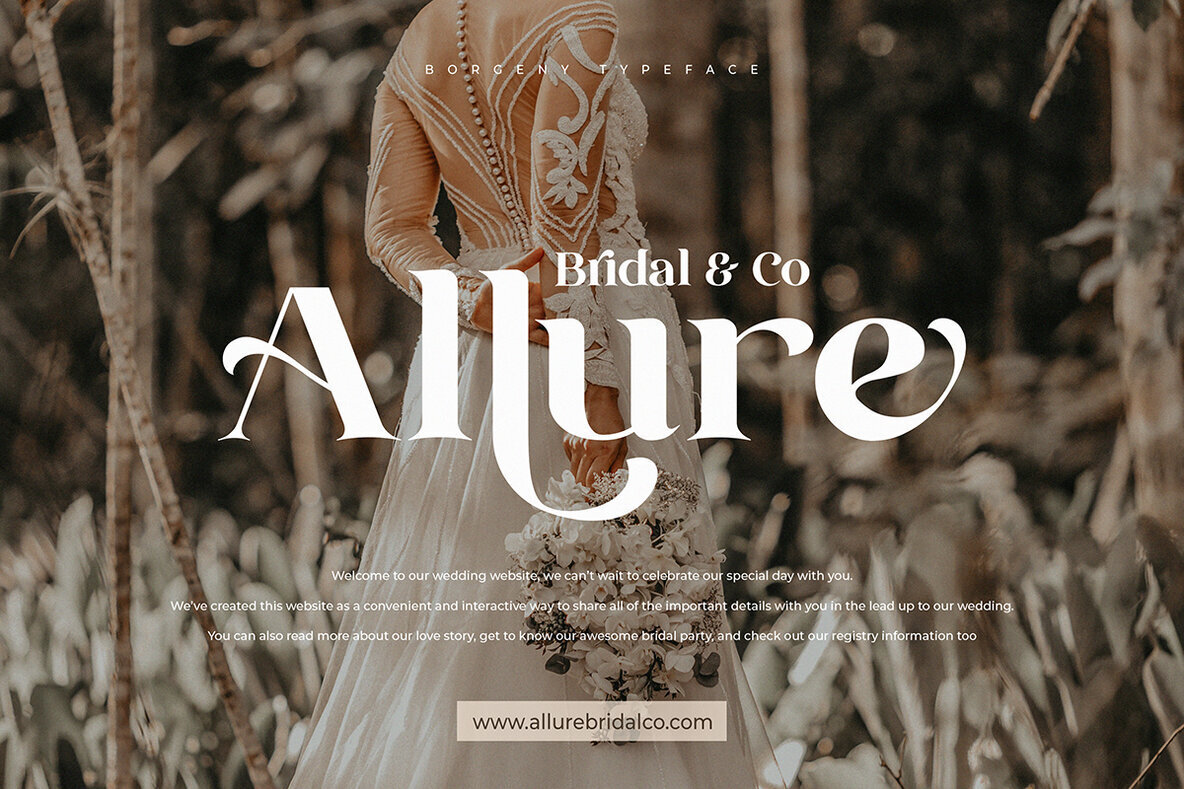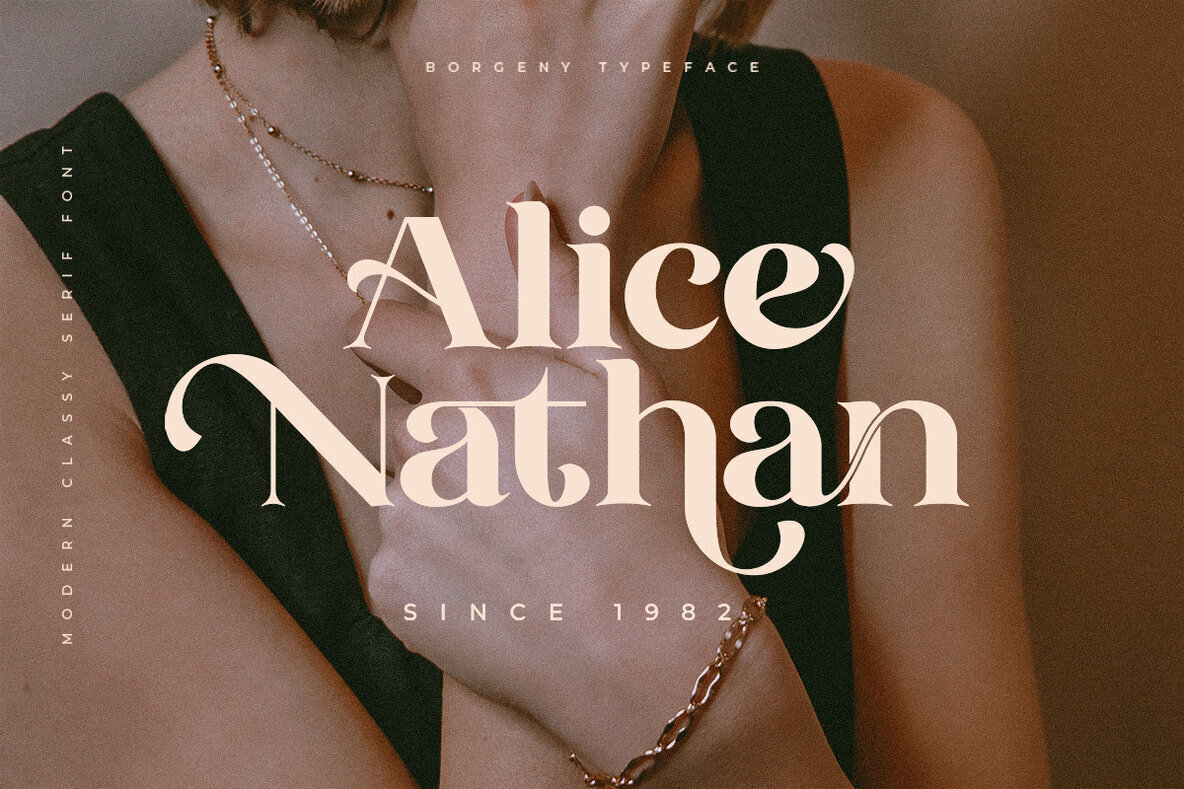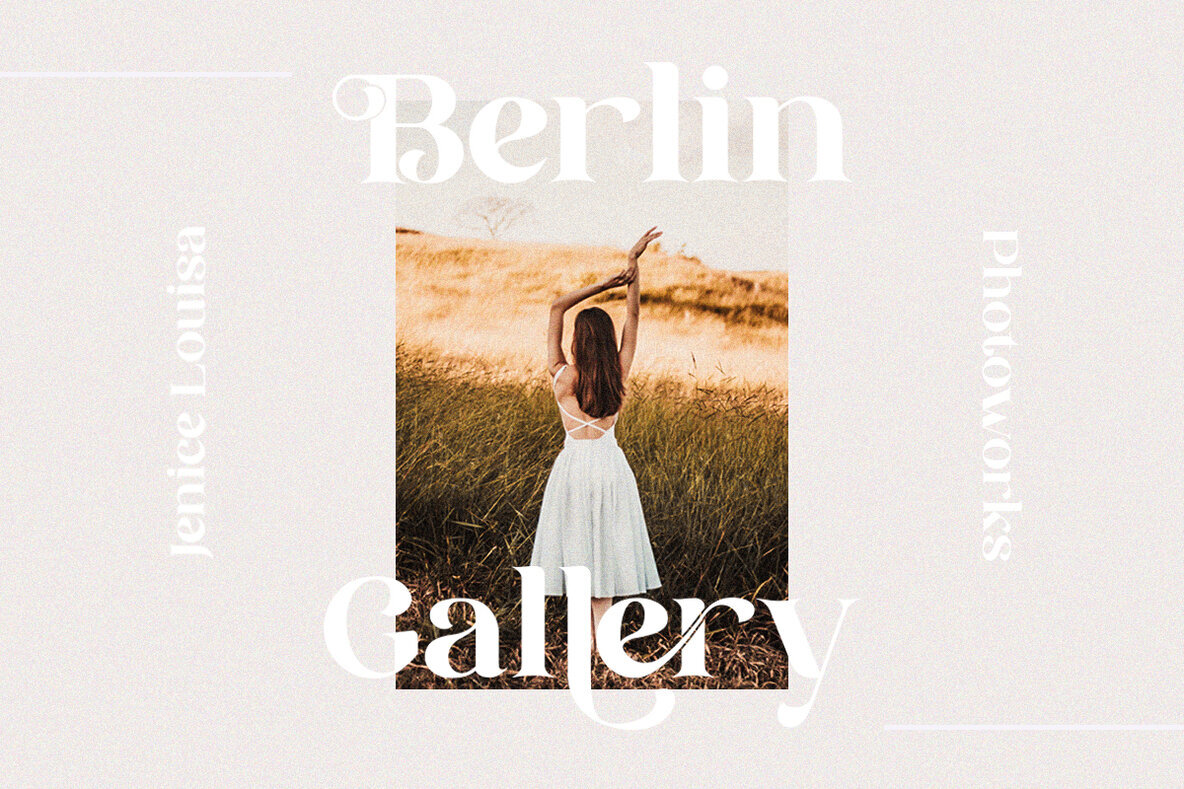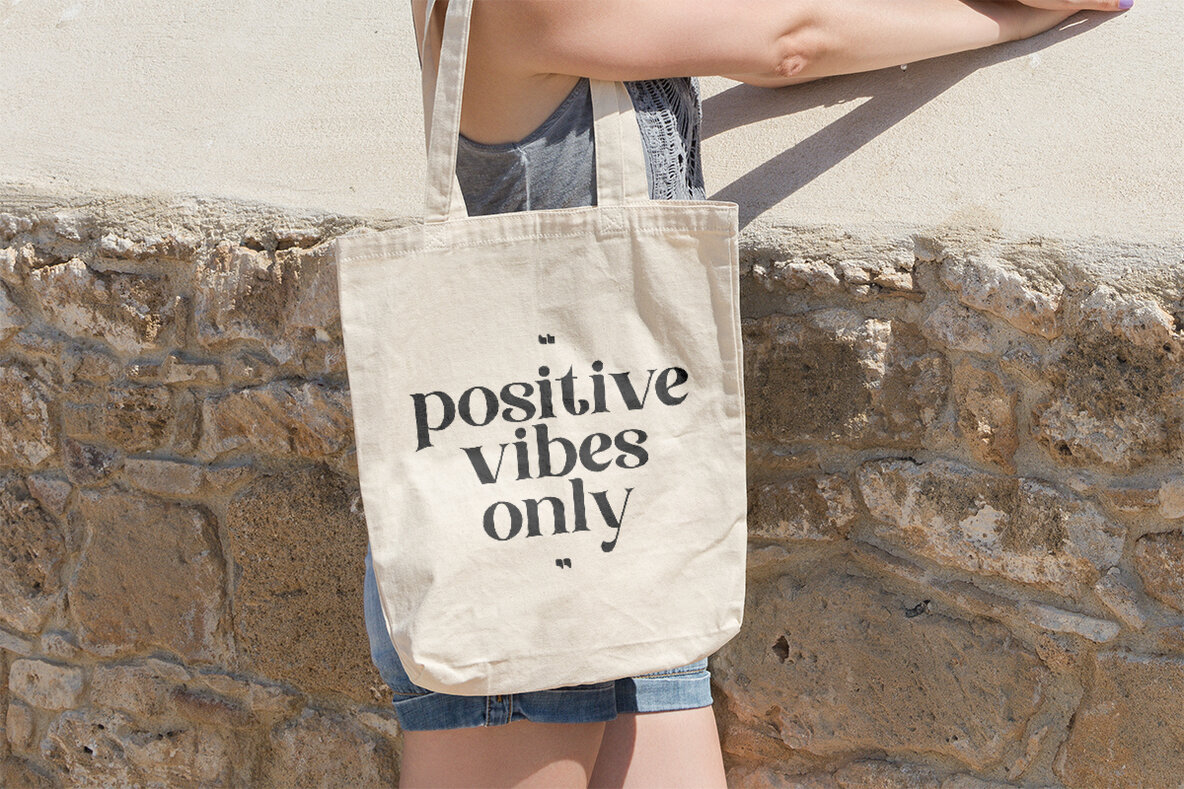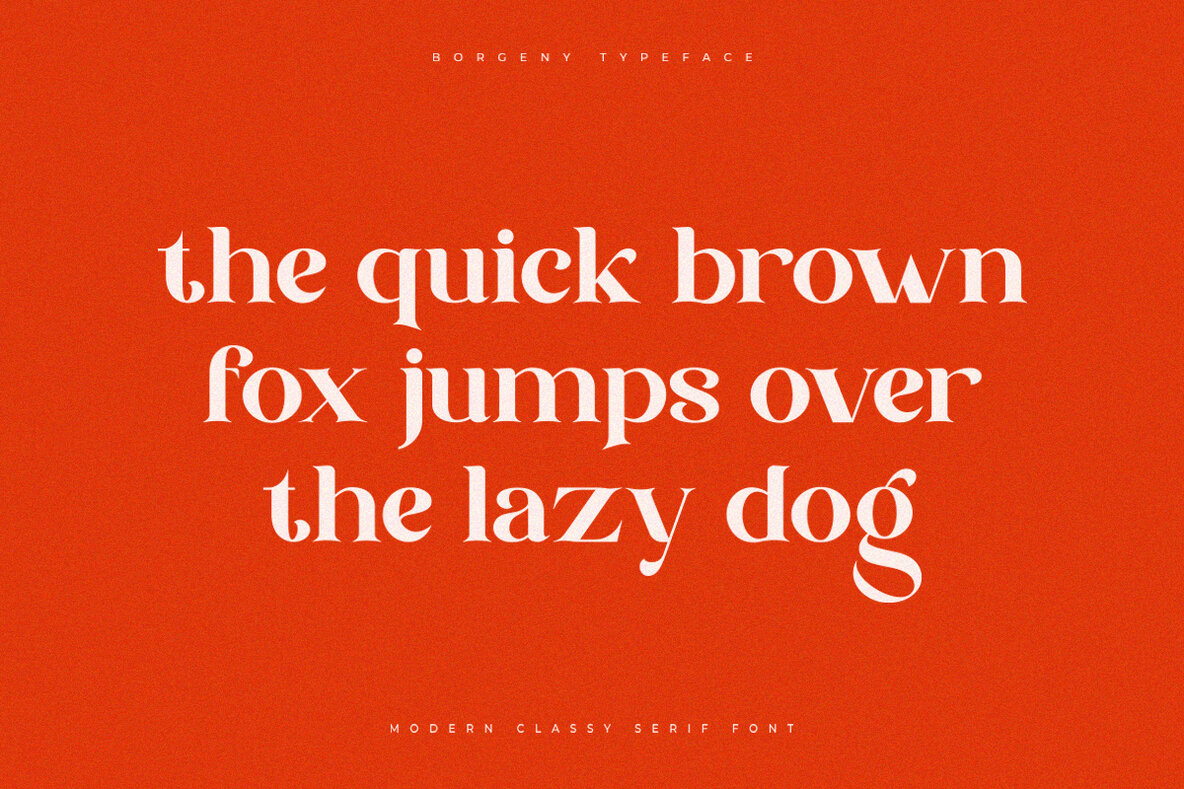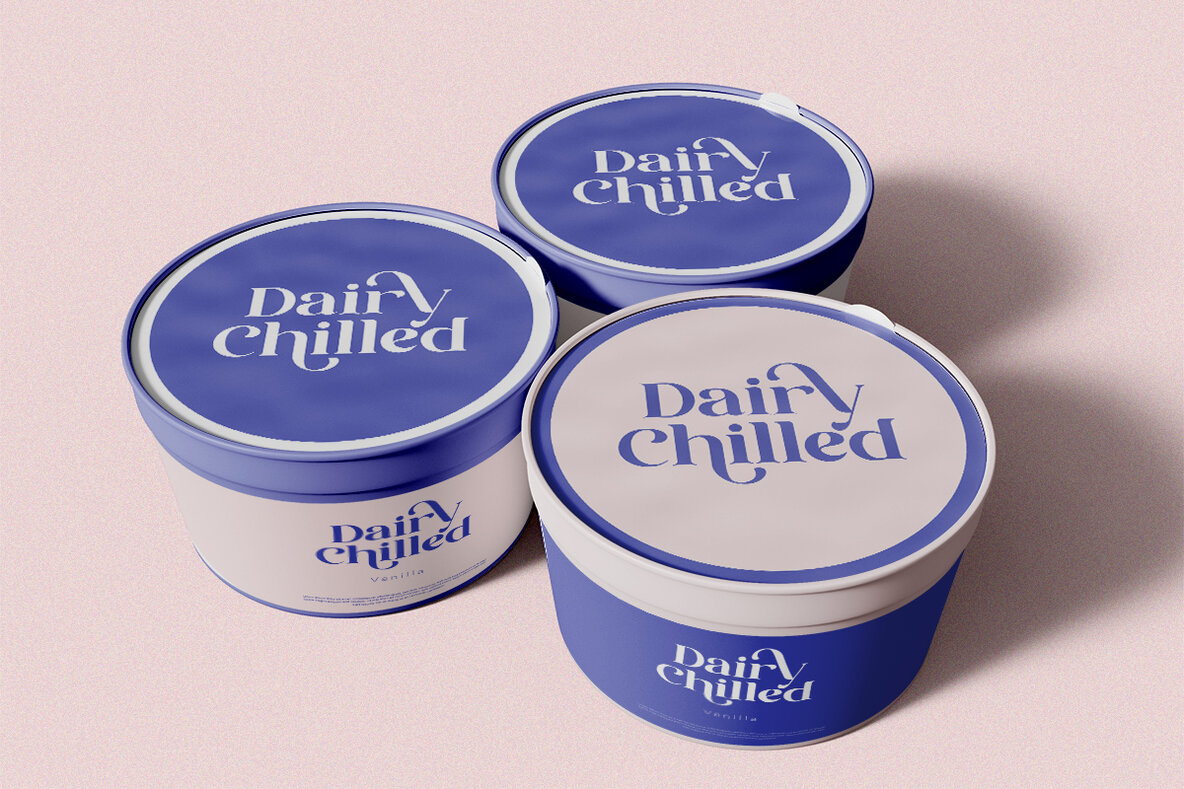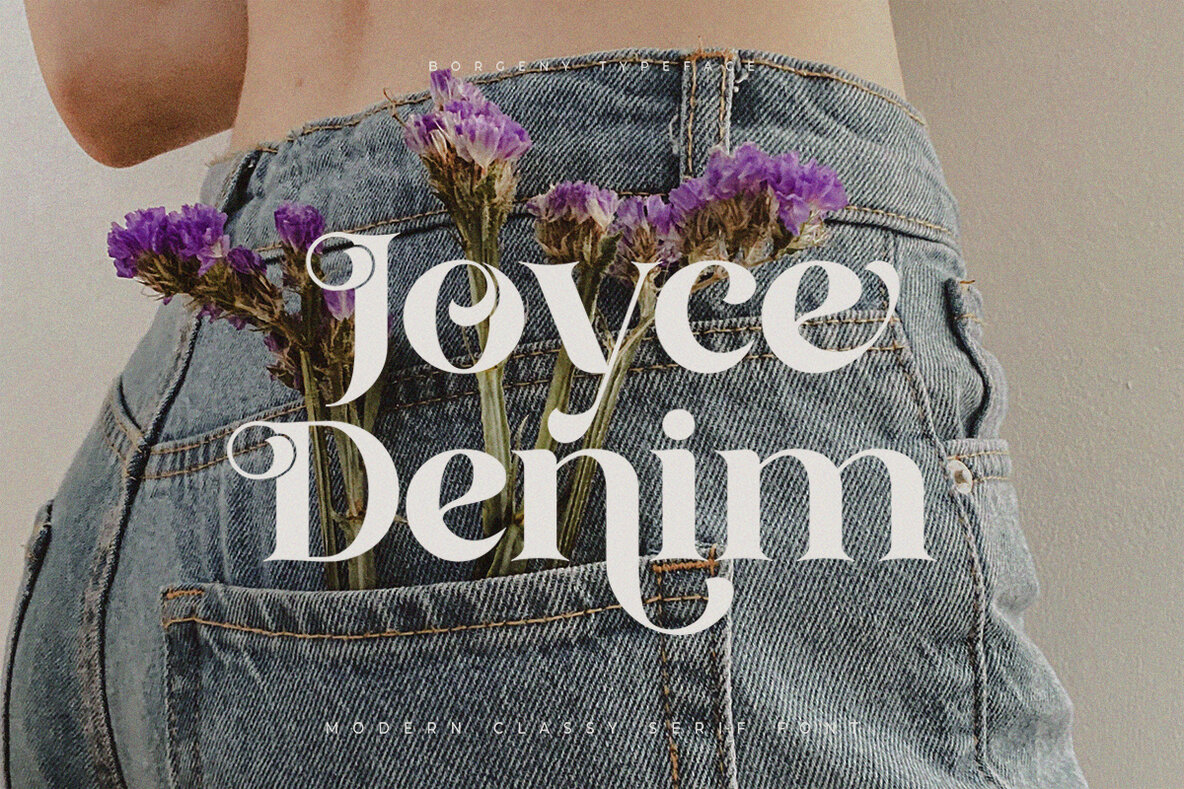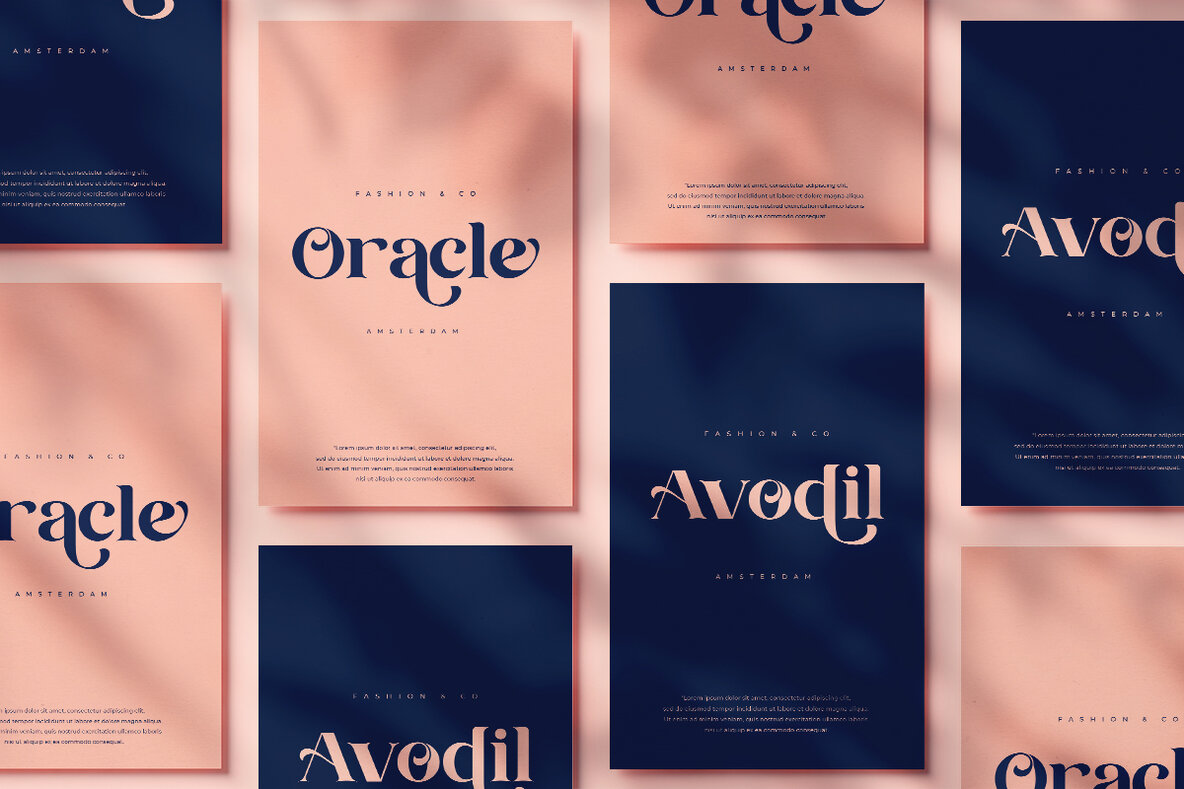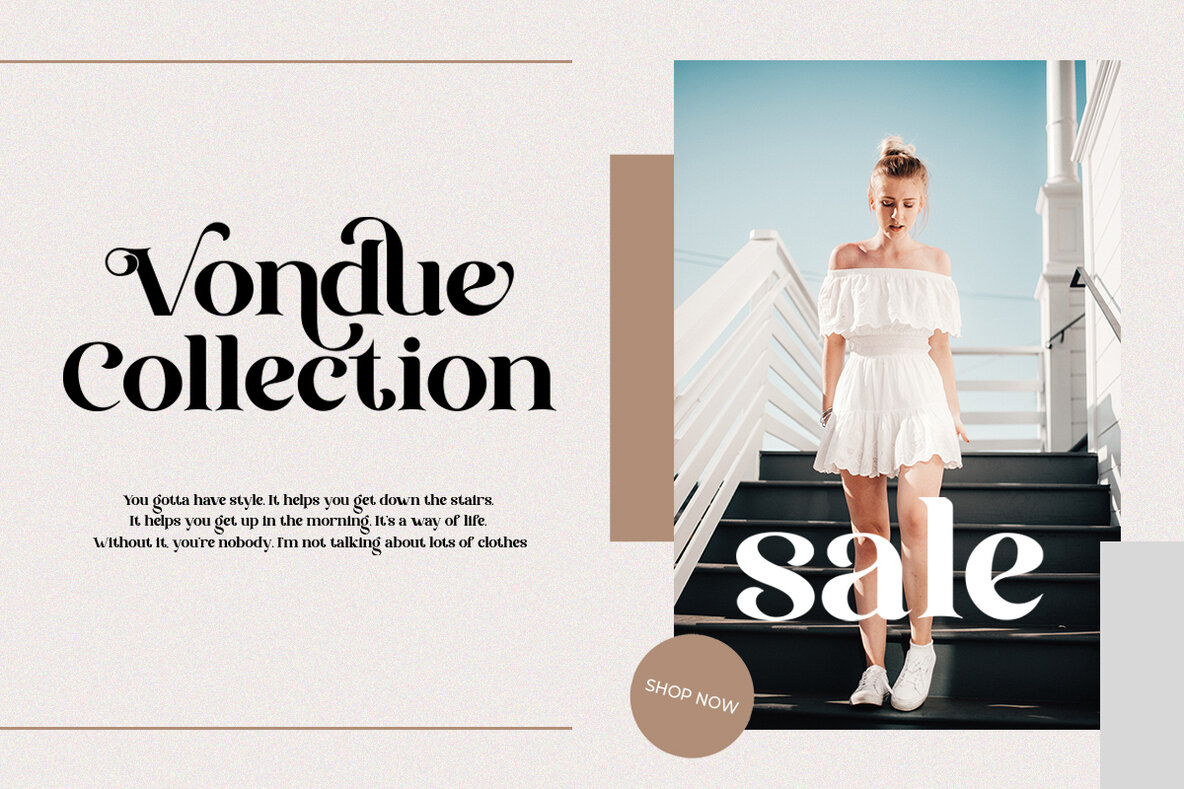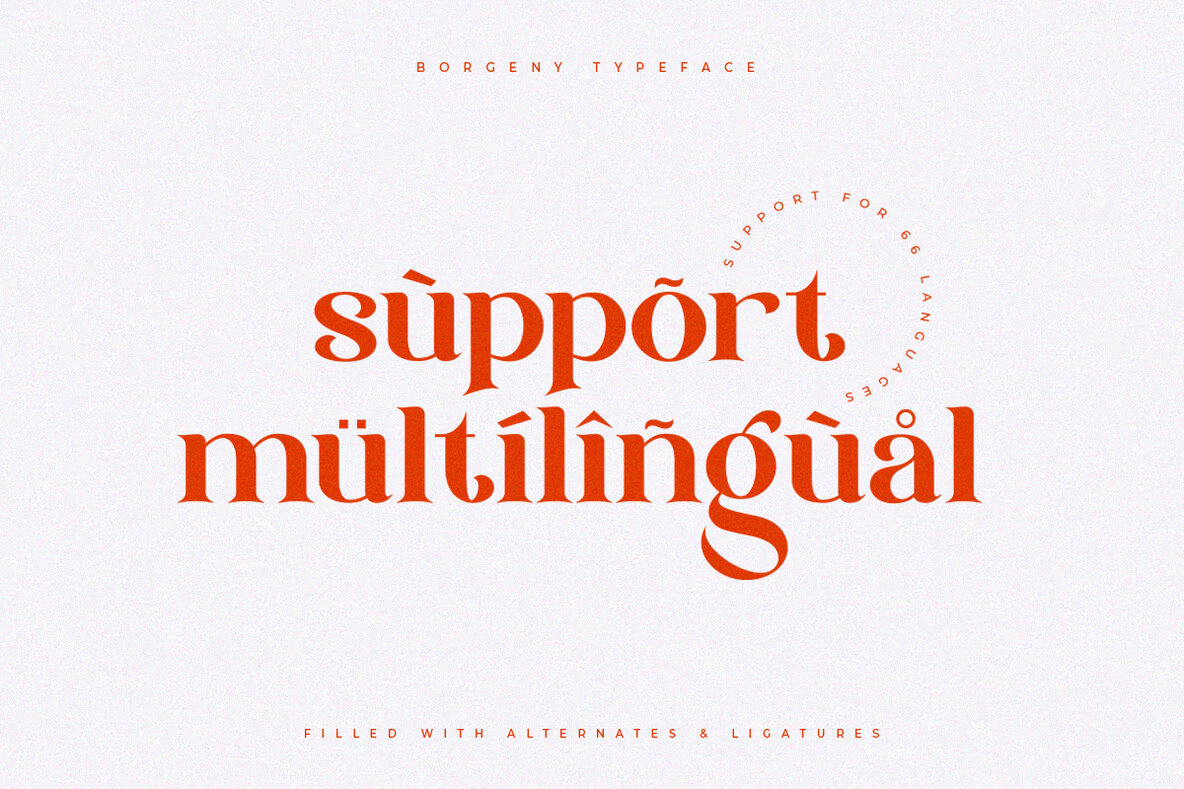
Borgeny Font
Borgeny
Borgeny captures the essence of sophistication and contemporary design in the form of a serif font. Its roots in modern serif typefaces offer a timeless yet refined aesthetic that is ideal for brand building, digital media, and print.Borgeny: A Modern Classic in Serif Typography